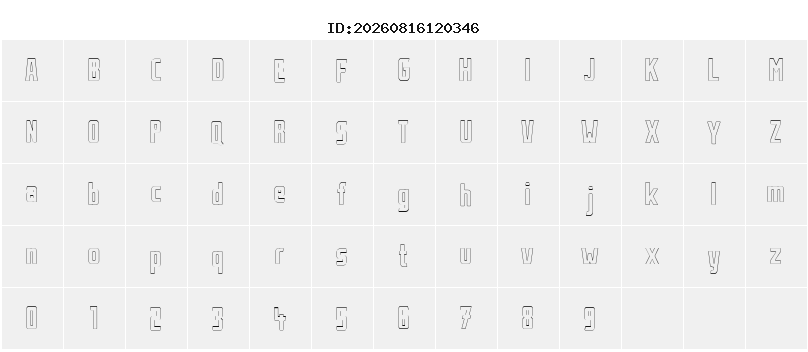
StahlbetontrŠger Preview
• Font Name: StahlbetontrŠger
• Designer: Nils von Blanc
• Manufacturer: Nils von Blanc
About StahlbetontrŠger.ttf
StahlbetontrŠger.ttf is a modern, elegant sans-serif font designed for ultimate readability and visual harmony. Perfect for branding, headlines, web design, and print materials.